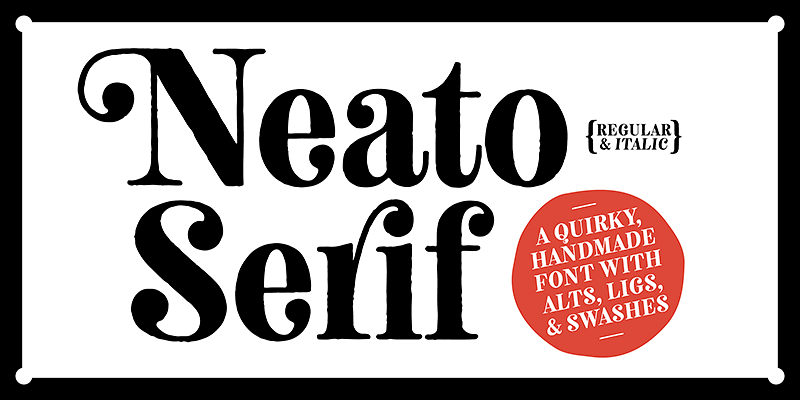
Neato Serif Font Free Download is a modern and elegant serif typeface with a timeless design, offering both style and readability. With its sophisticated letterforms, balanced contrast, and classic proportions, this font is perfect for high-end branding, editorial design, books, and any project requiring a polished and professional appearance.
Neato Serif Font Free Download combines the timeless beauty of traditional serifs with a fresh and contemporary look. Its versatility makes it suitable for both display use in headlines and longer text blocks in body copy, offering great legibility across both print and digital formats.
Whether you’re designing for luxury brands, editorial publications, or creating high-quality digital content, Neato Serif delivers a refined and professional look to your typography.